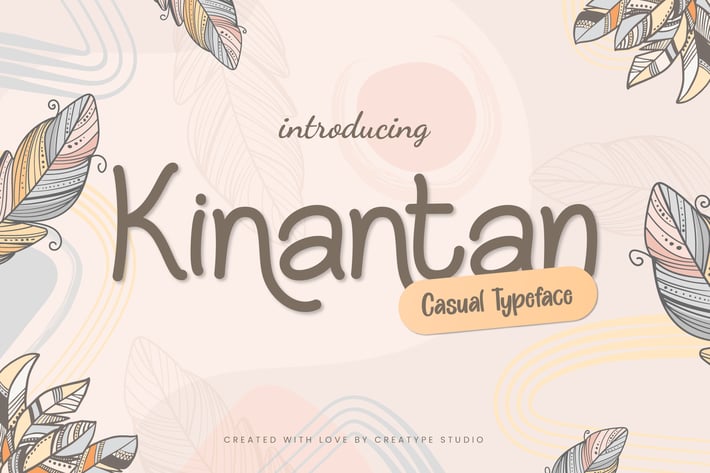
Kinantan Casual Business Font
Kinantan is a casual fun typeface that is specially made with love to produce a font that looks cute and fun. Seen in its shape, this font is very suitable for your products that use a sense of fun and children.
Kinantan is perfect for branding projects, logo, wedding designs, social media posts, advertisements, product packaging, product designs, label, photography, watermark, invitation, stationery and any projects that need handwriting taste.
Ton of glyphs
Ligature & Alternate